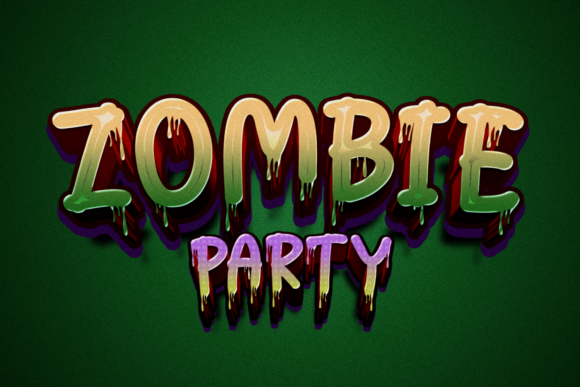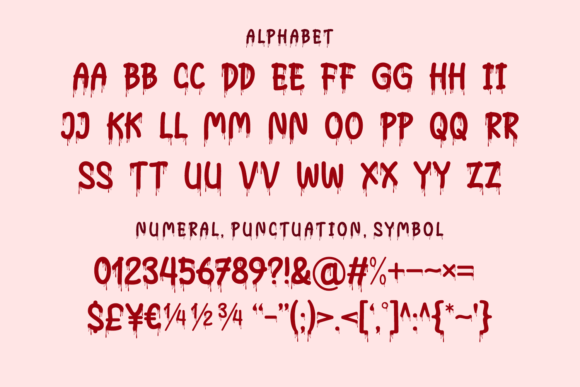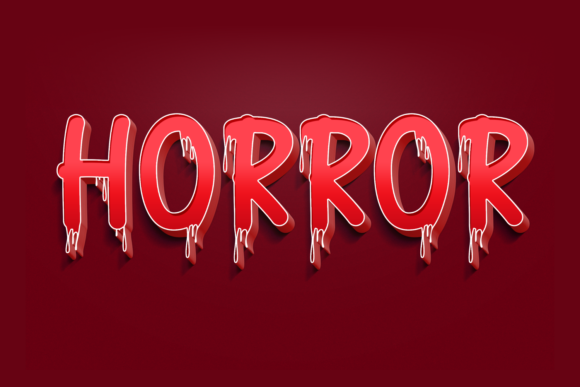
The Perfect Font for Your Spooky Creations
You’re sitting at your desk, staring at a blank canvas, and the clock is ticking. You need a font that will transport your audience to a world of eerie landscapes and haunting tales. The question is, where do you find that perfect font to set the mood? Enter the Blood Forest Font, a chilling display font that will take your next project to the next level.
This unique font set is designed to bring an extra spooky dimension to your work, with each glyph featuring drip elements that will leave your viewers shivering. Whether you’re designing a Halloween-themed logo, poster, or social media graphic, the Blood Forest Font is the perfect choice. As a designer, you know how valuable a versatile and creative tool can be, and this font is sure to become a staple in your arsenal.
Blood Forest Font Key Features
- Font Family: Blood Forest Font is a unique, hand-drawn font with 6 styles (Thin, Light, Regular, Medium, Bold, Black) to cater to various design needs.
- Character Set: The font includes a comprehensive set of characters, including uppercase and lowercase letters, numerals, punctuation marks, and special characters.
- Unique Characteristics: Blood Forest Font features a blend of organic and geometric elements, creating a distinctive, eye-catching design that is perfect for adding a touch of elegance and sophistication to various projects.
Blood Forest Font Review
I’ve had the chance to work with the Blood Forest Font, and I must say it’s a unique addition to any design project. Here are some of its standout features:
- ✨ Distinctive aesthetic: Blood Forest Font has a gothic, mystical feel that can add an air of mystery to any design. It’s perfect for projects that need a touch of the unknown.
- ✨ Good legibility: Despite its ornate appearance, the font is surprisingly easy to read, making it suitable for body text and headings.
- ✨ Customizable: Blood Forest Font comes in various weights and styles, allowing designers to mix and match to achieve the desired look.
- ⚠️ Limited versatility: While Blood Forest Font is great for certain projects, it might not be the best choice for more modern or minimalist designs.
- ⚠️ Potential overuse: The font’s distinctive style can quickly become overwhelming if used excessively. It’s essential to balance its use with other fonts and design elements.
Overall, Blood Forest Font is a solid choice for designers who want to add a touch of darkness and mystery to their projects. With its unique aesthetic and good legibility, it’s a great option for the right design. However, it’s essential to use it judiciously to avoid overwhelming the viewer.
For the most dramatic effect, use the Blood Forest Font in bold or italic styles.
Use the font for titles, headings, and other emphasis elements in designs, such as:
- Horror-themed posters and graphics.
- Dark fantasy book covers and marketing materials.
- Grungy or industrial-themed logos and branding.